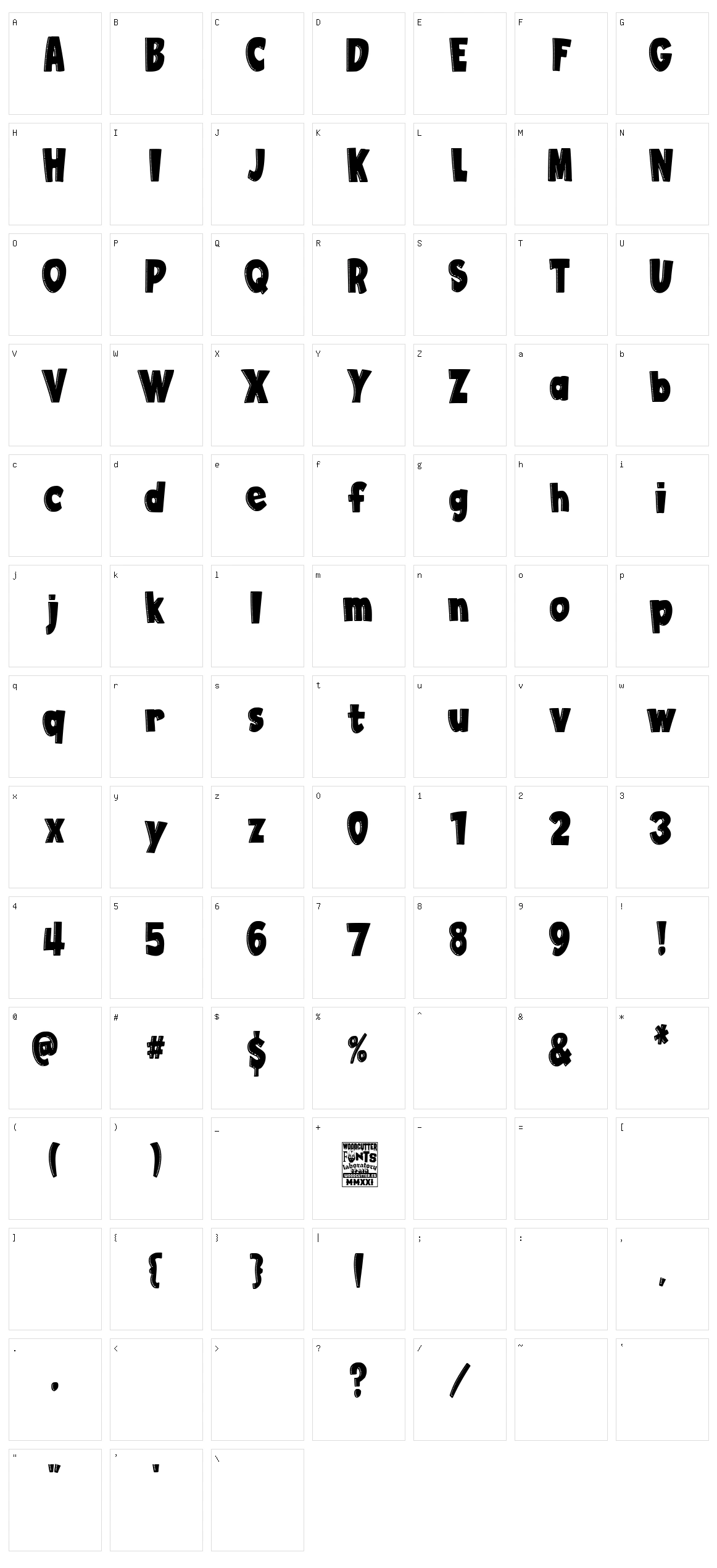
The free font Clows Brotherhood is carefully designed by Woodcutter, showcasing a thoughtful balance of creativity and usability and falls under the Cartoon font style. When you download the ZIP file, it contains only 120.7 KB of font files, making it lightweight and quick to download. Please review the license details below to understand permitted usage and distribution rights. If license information is not available, we recommend using this font for personal projects only or contacting the author directly for commercial usage permissions.